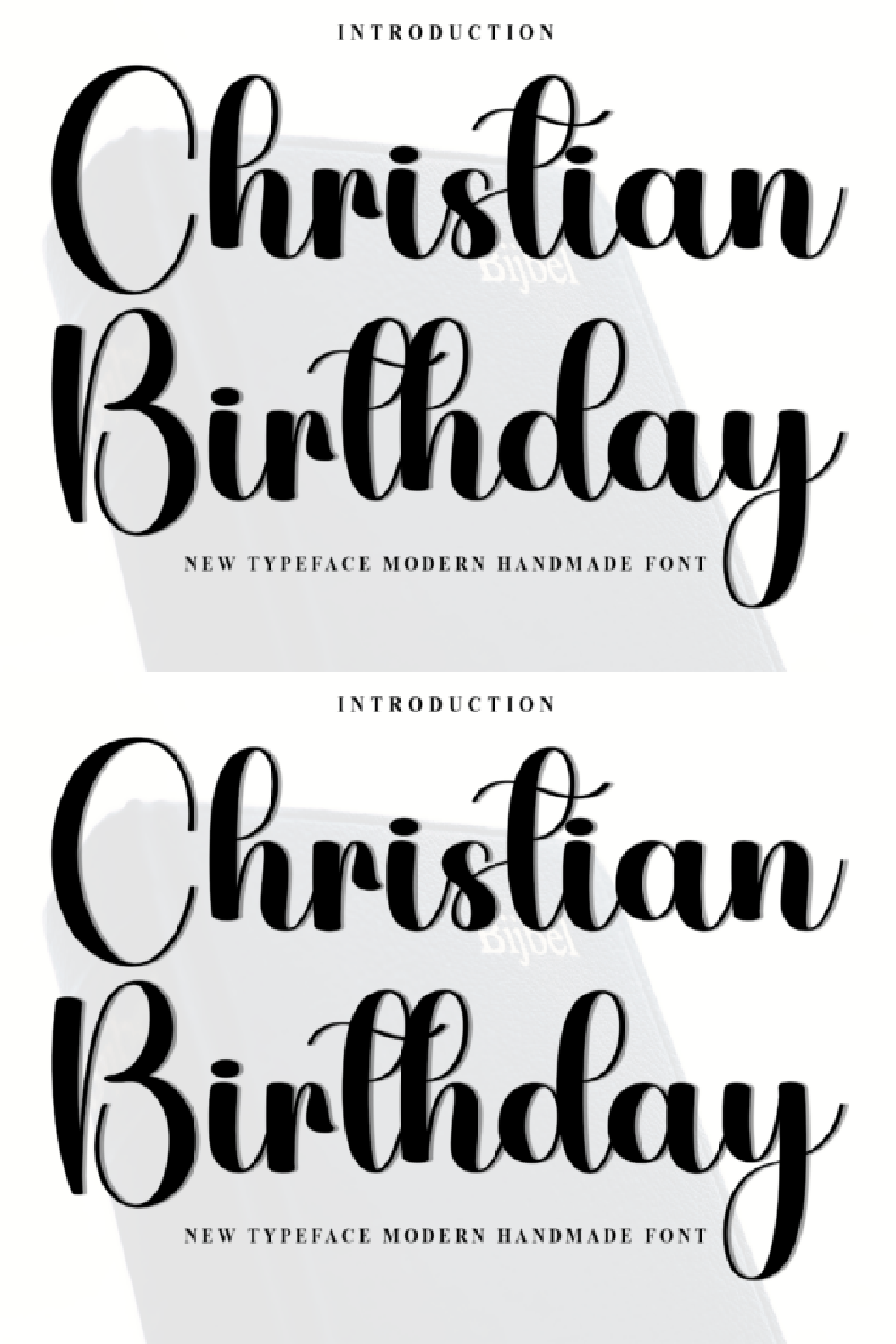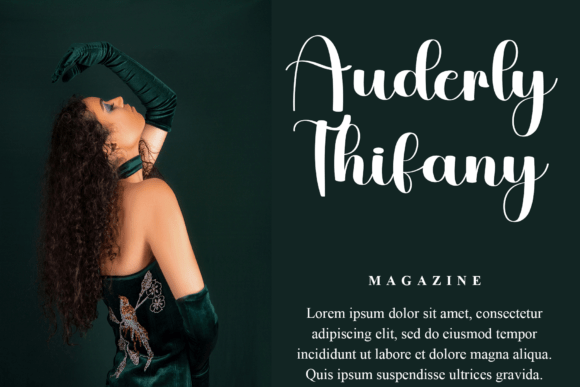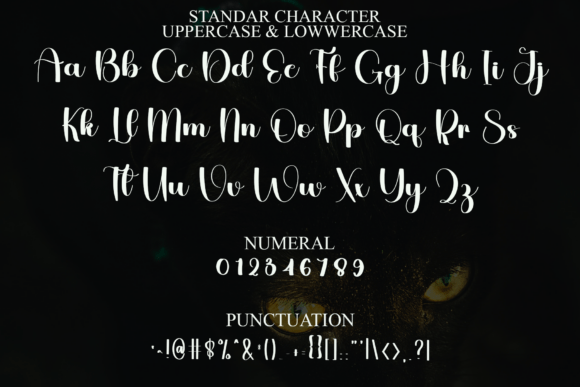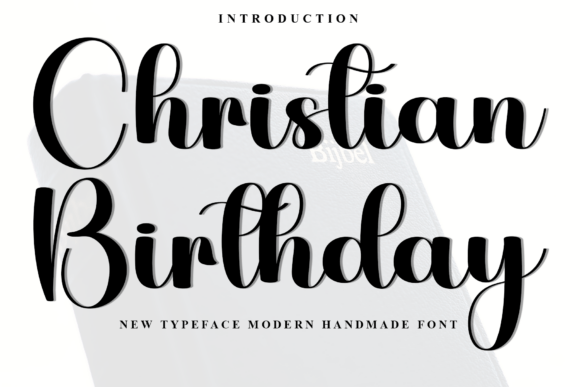
Christian Birthday Font
About the Christian Birthday Font
Get ready to be inspired by Christian Birthday Font, a fresh and dynamic typeface for modern creators. Christian Birthday is a casual and creative font that exudes warmth and friendliness. Its round, playful strokes create a relaxed and approachable feel, perfect for personal projects, invitations, and social media graphics. The font’s charming, hand-drawn aesthetic adds a fun and unique touch to any design.